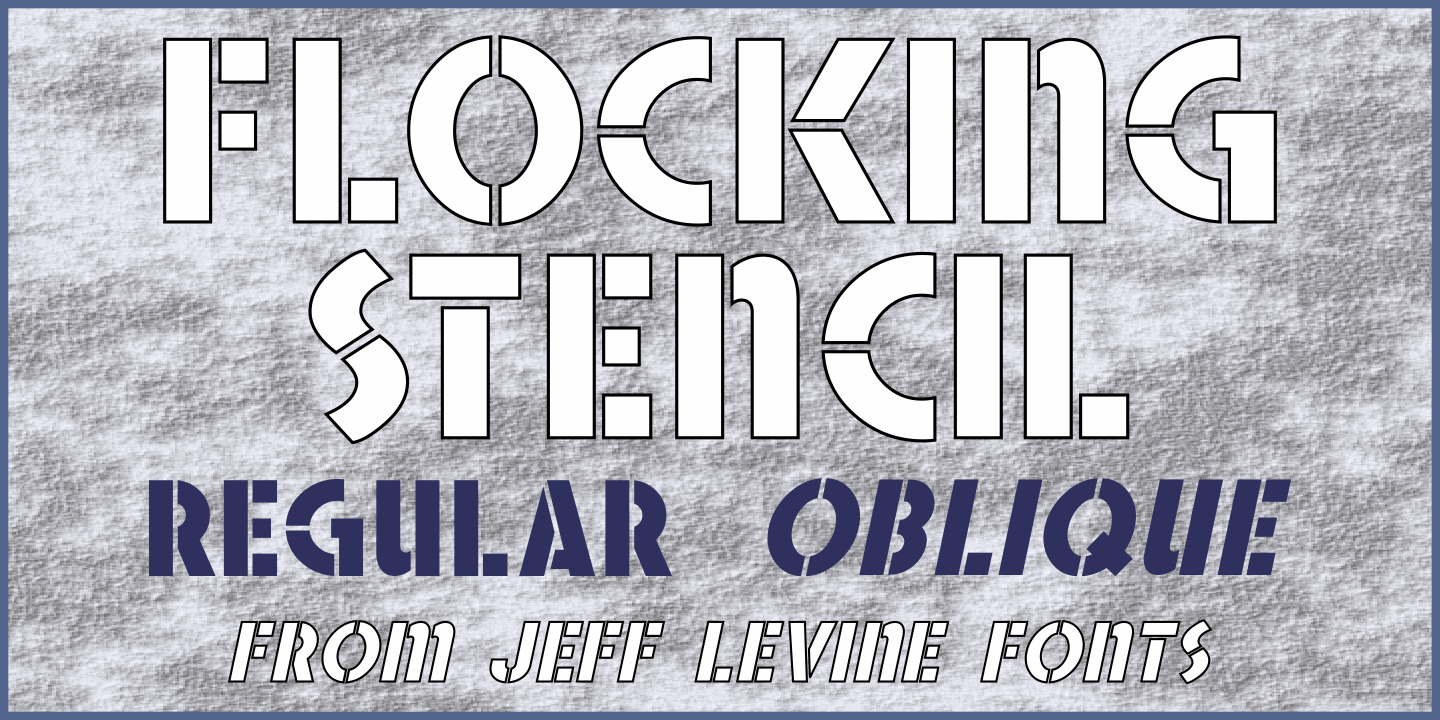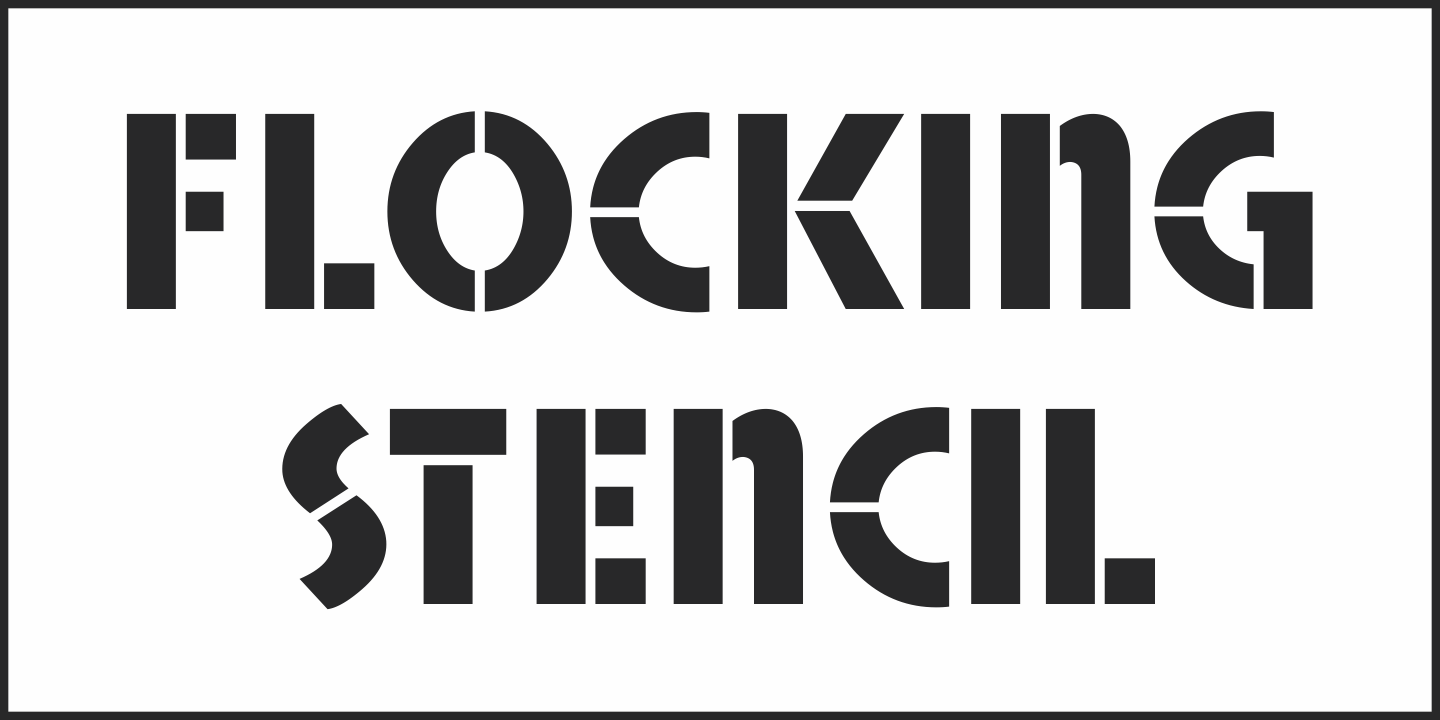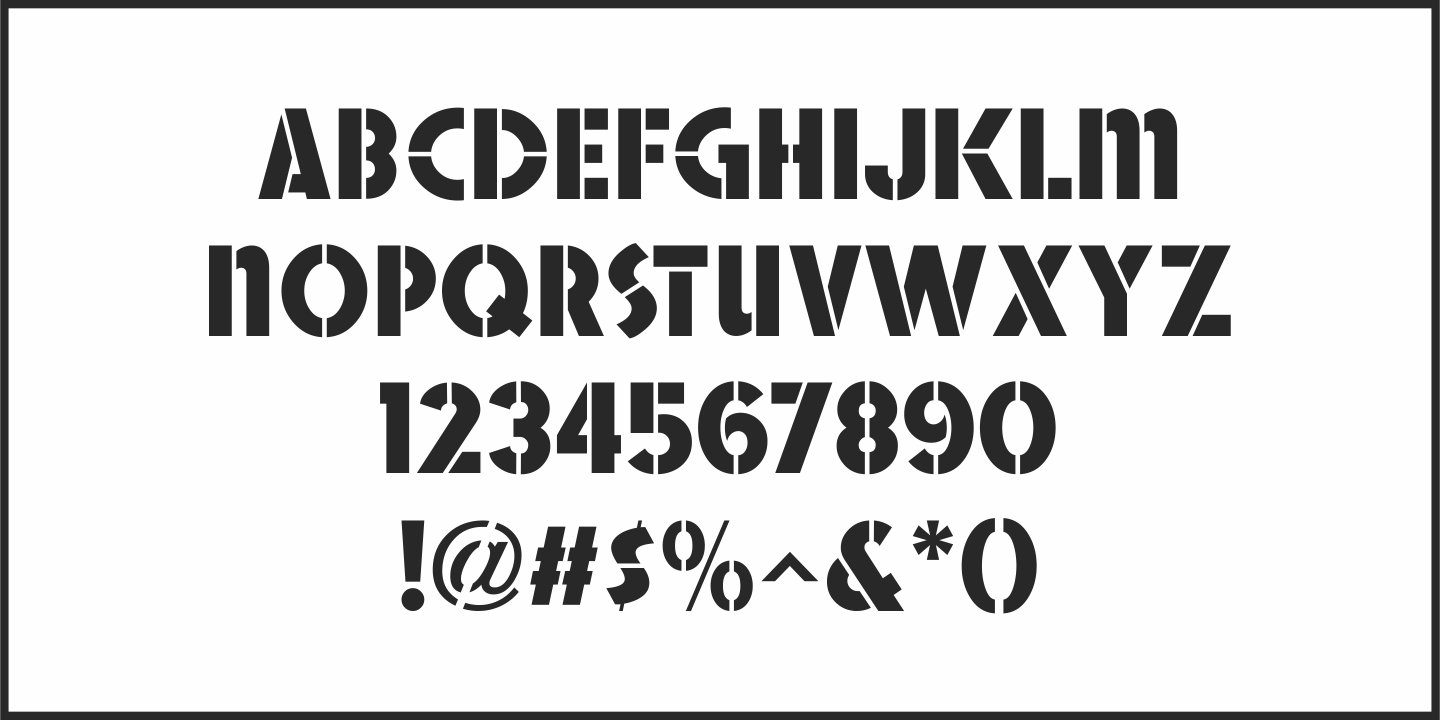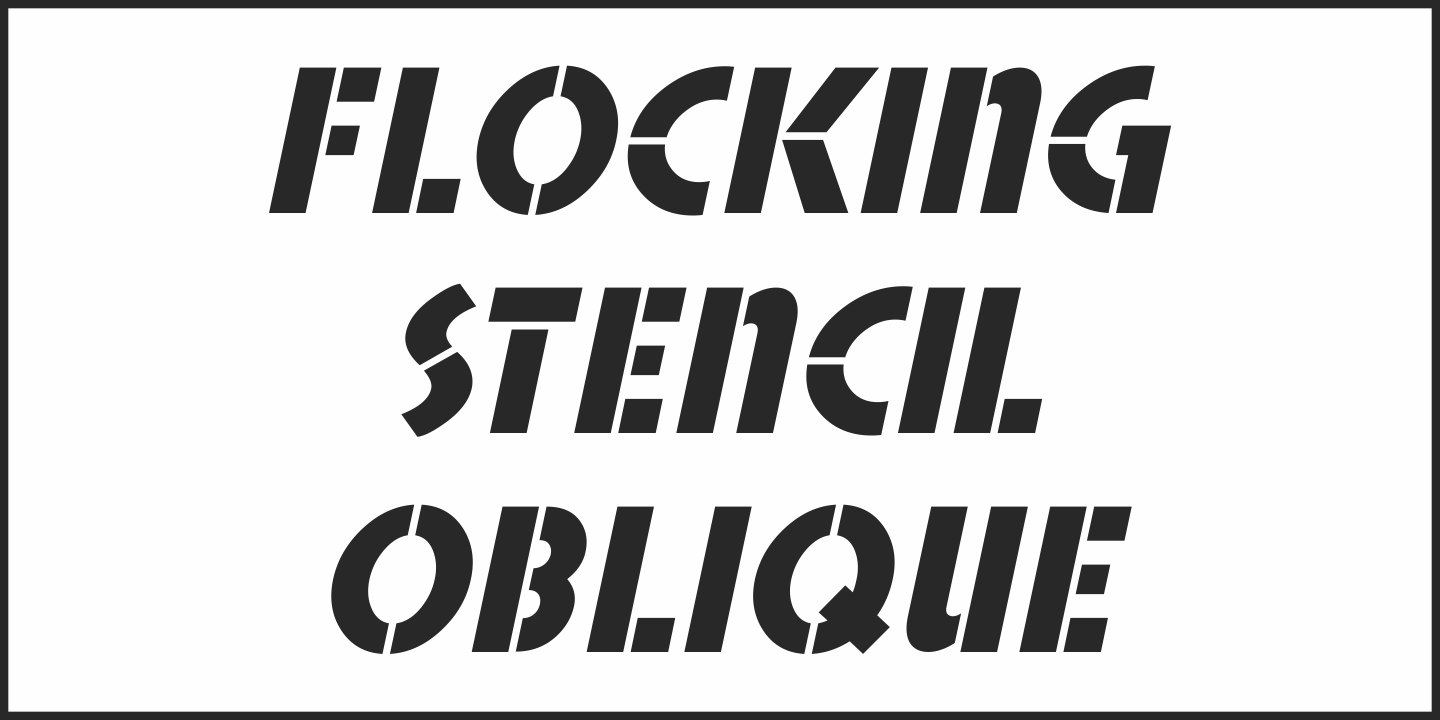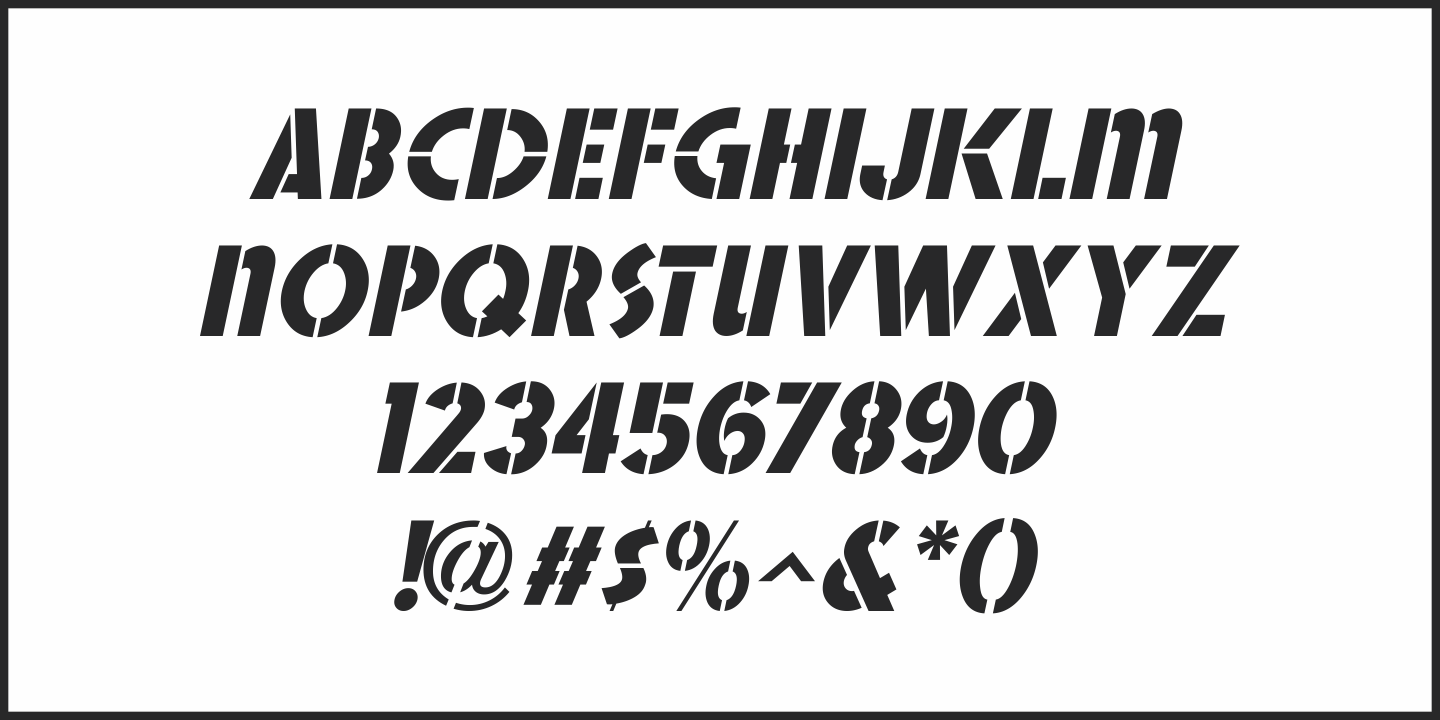
Flocking Stencil
Vintage packaging for Frosty Stencil Flock contained the hand lettered term 'spray flock” which served as the basis for Flocking Stencil JNL; available in both regular and oblique versions.
Commonly referred to as 'Spray Snow”, these kits of holiday stencils and spray cans were a popular item in the households of the 1950s and early-to-mid 1960s.